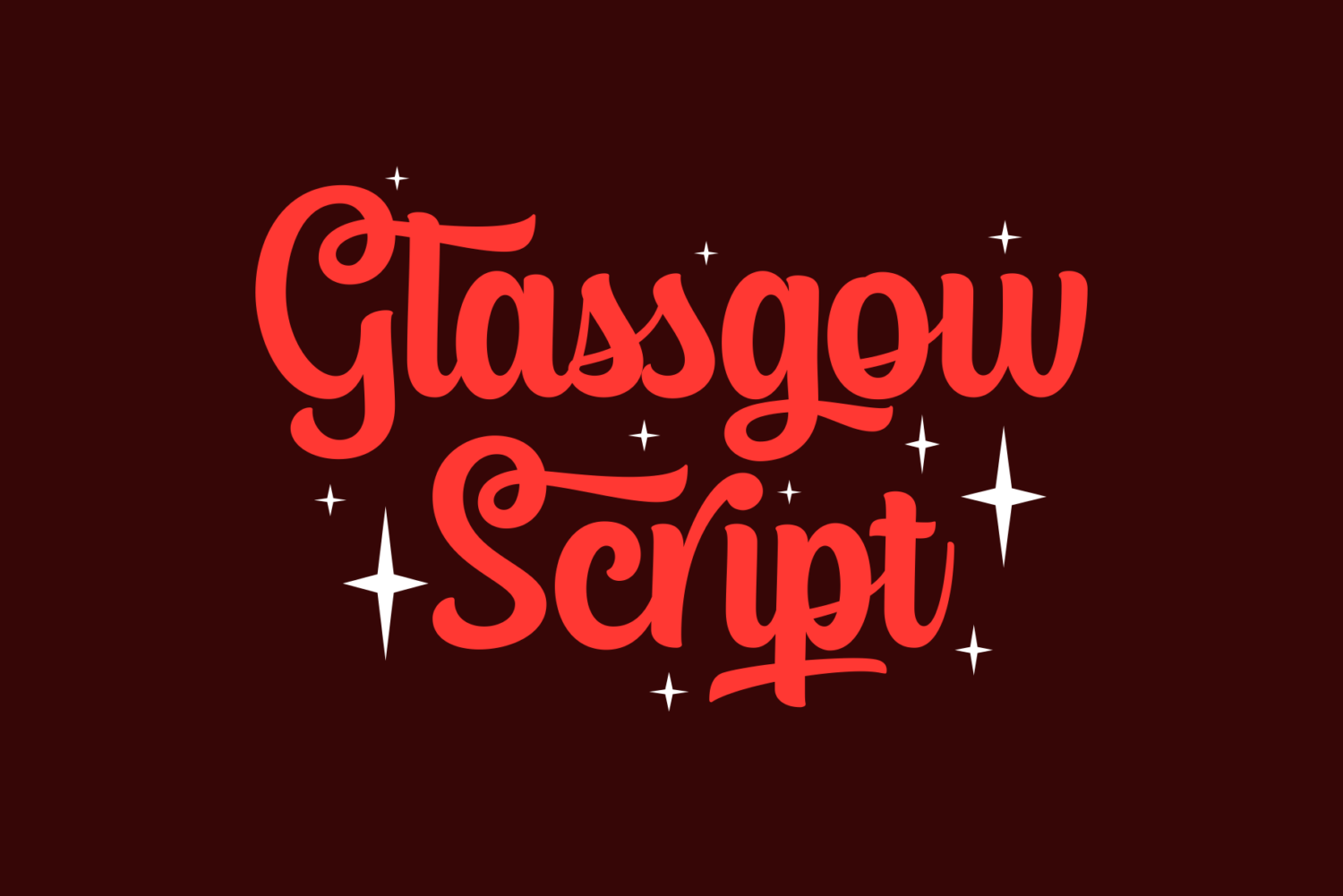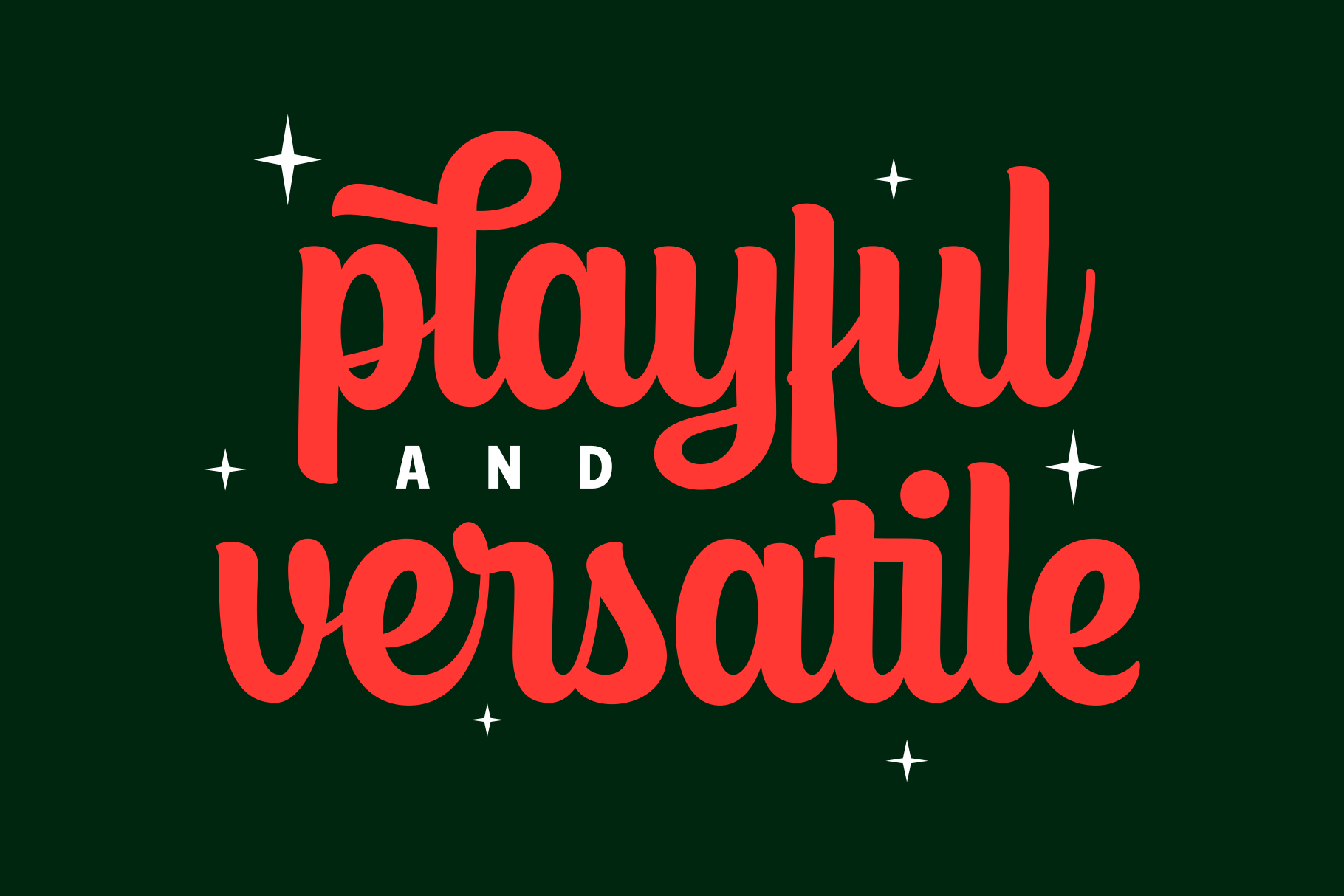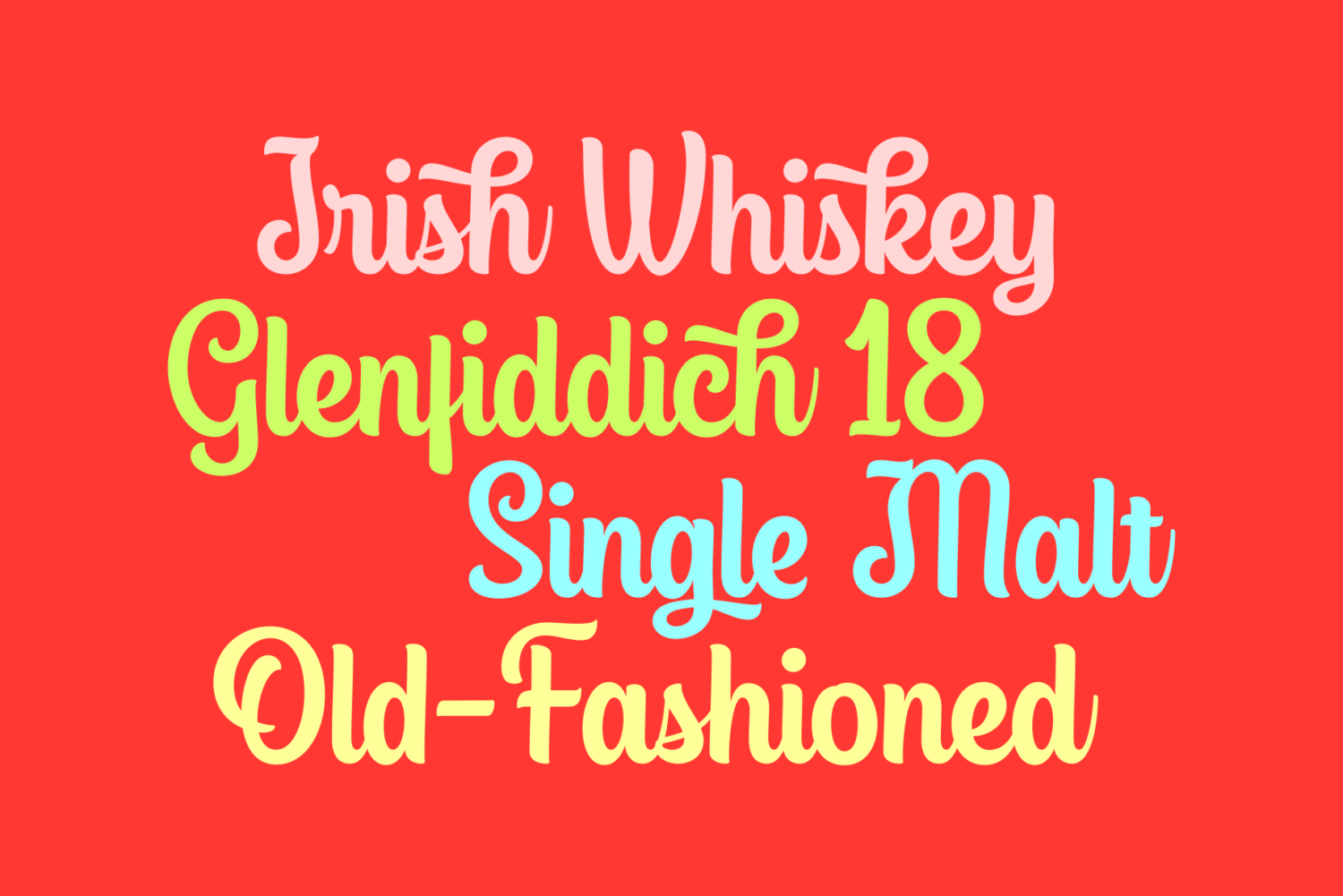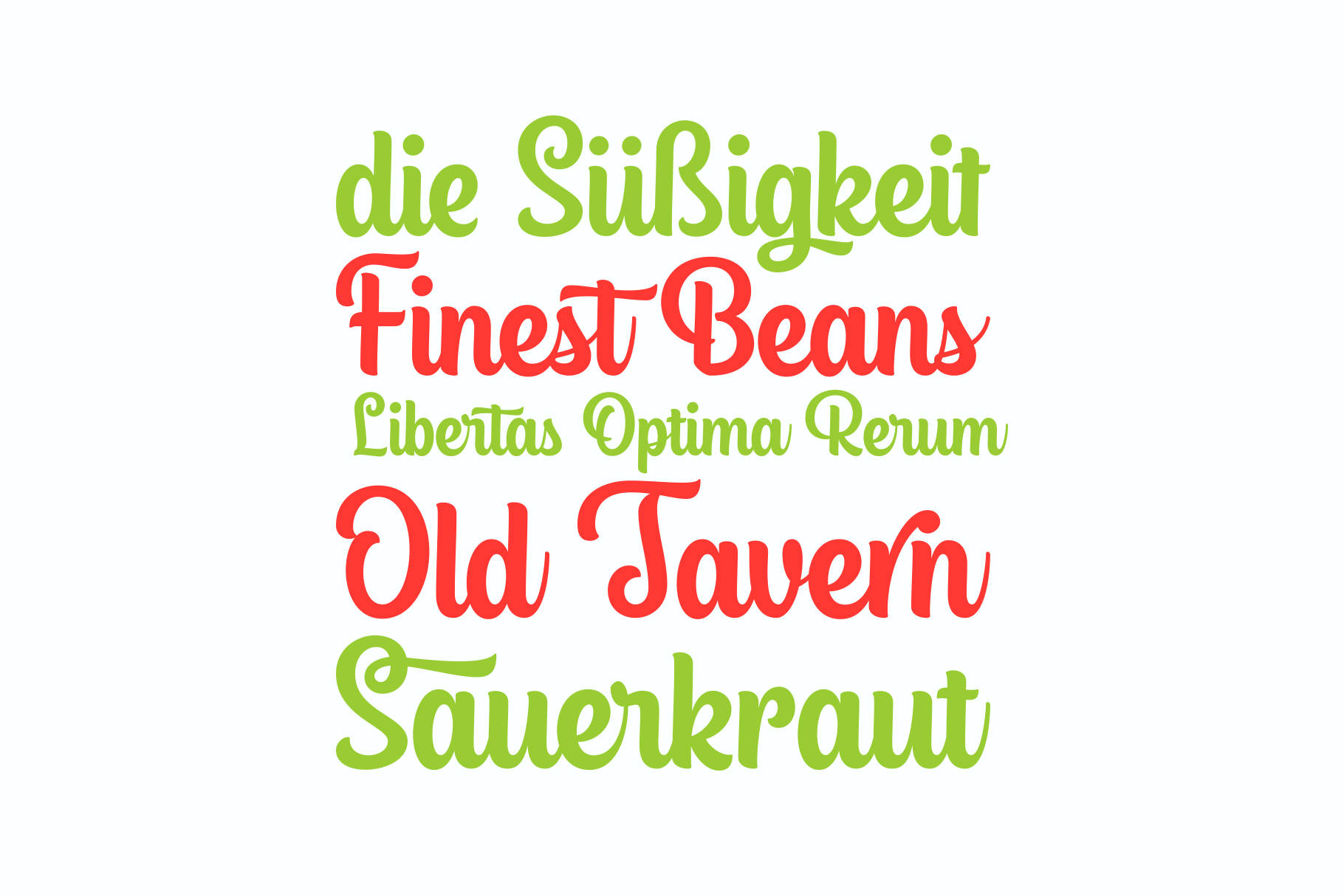
Glassgow Script Free Font
Glassgow Script Free Font is a straight forward and towering script that offers you a natural hand-lettering experience. This bold and clean font was crafted digitally using basic shapes that often used in sign painting techniques. This free typeface was designed by a talented Fahrizal Tawakkal. If you like it don’t forget to check out the full version.